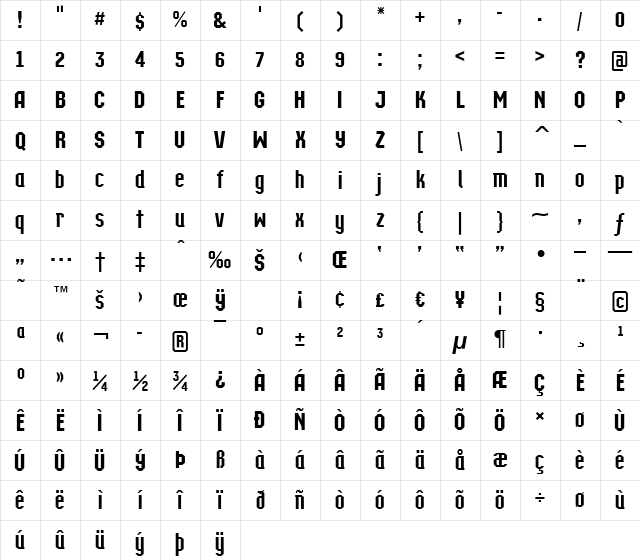
a_Technics DemiBold Free Font
a_Technics DemiBold
Style: DemiBold
Designer: W.Chufarofsky & M.Slutsker
Design Context for a_Technics
a_Technics has a distinctly futuristic character, with geometric precision and clean angles that feel at home in technology, gaming, and sci-fi contexts. Its bold stroke weight gives it real presence on the page.
Ideal for esports teams, cyberpunk aesthetics, fintech brands, and anything that needs to feel forward-looking.
Font Pairing: Pairs well with a humanist sans-serif for body copy - the contrast between mechanical precision and organic warmth creates a compelling typographic dynamic.
Pro Tip: Try a_Technics with generous letter-spacing in UI labels and navigation - the geometric forms benefit from room to breathe.